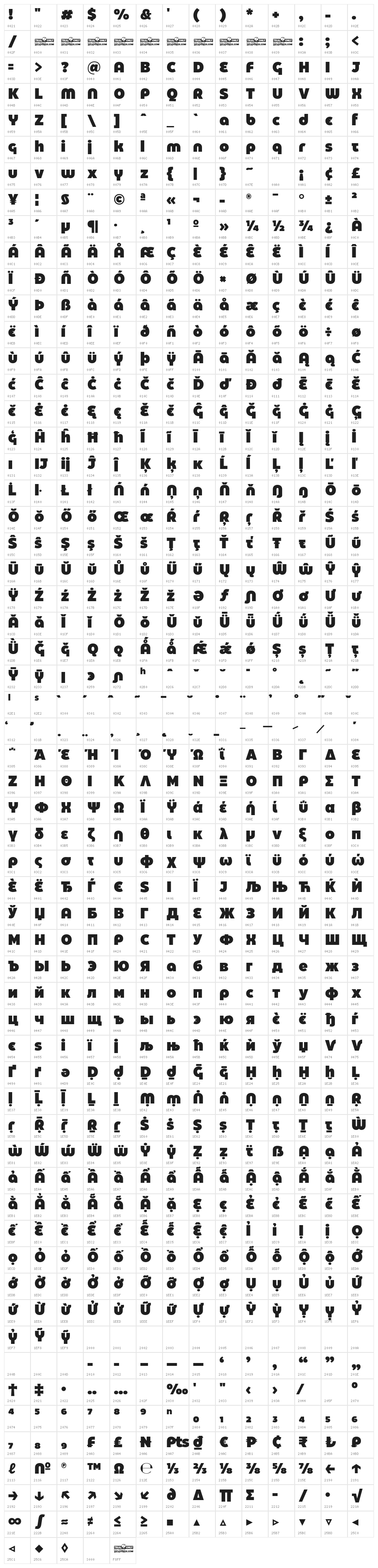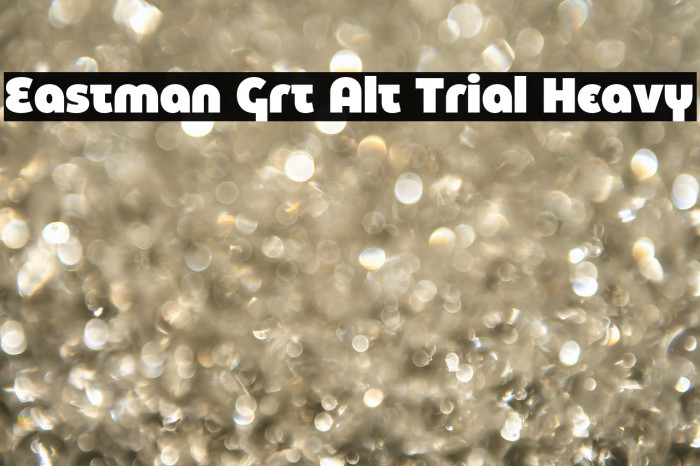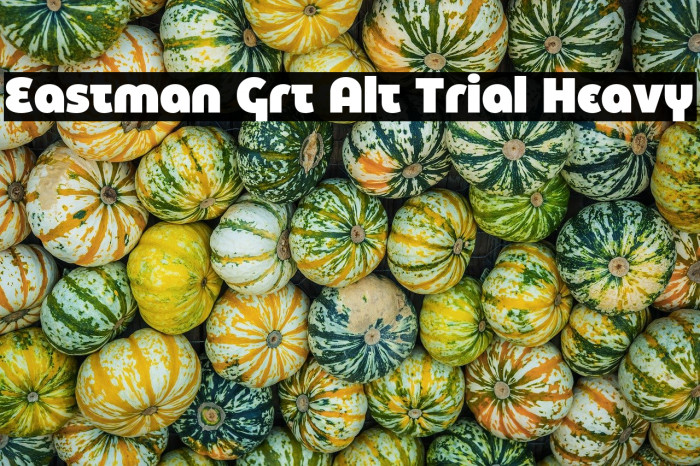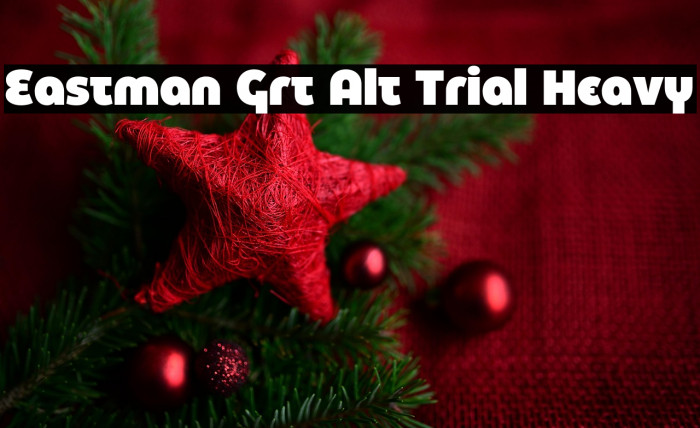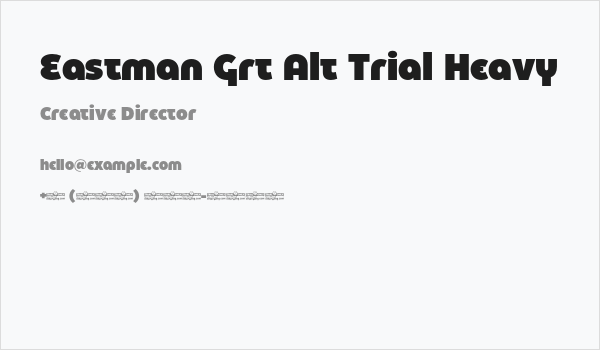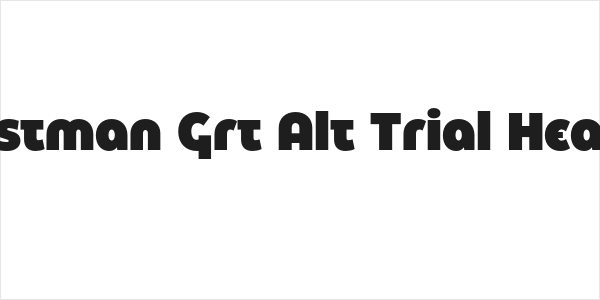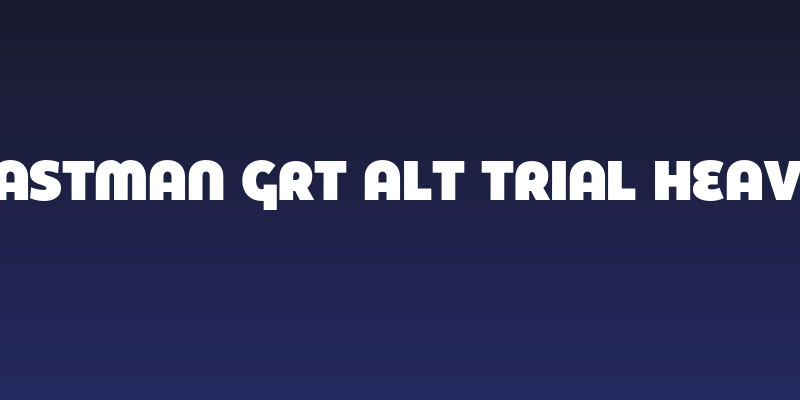
Eastman Grt Alt Trial Heavy Font
Eastman Grt Alt Trial Heavy Description
This font features a bold and impactful design with thick strokes and a strong presence. The characters are rounded with a slight geometric influence, giving them a modern and approachable feel. The uppercase and lowercase letters maintain consistent weight, providing a uniform appearance across the typeface. The numerals and special characters are designed to match the boldness of the alphabet, ensuring a cohesive look. This font is ideal for making a statement, with its heavy weight and solid structure.